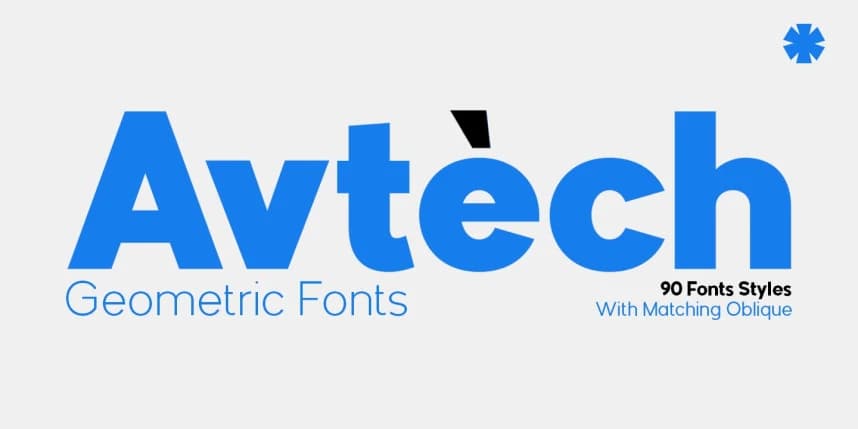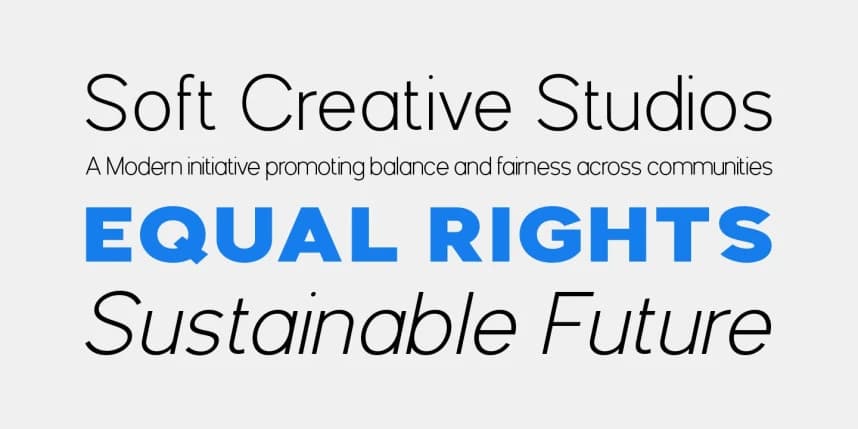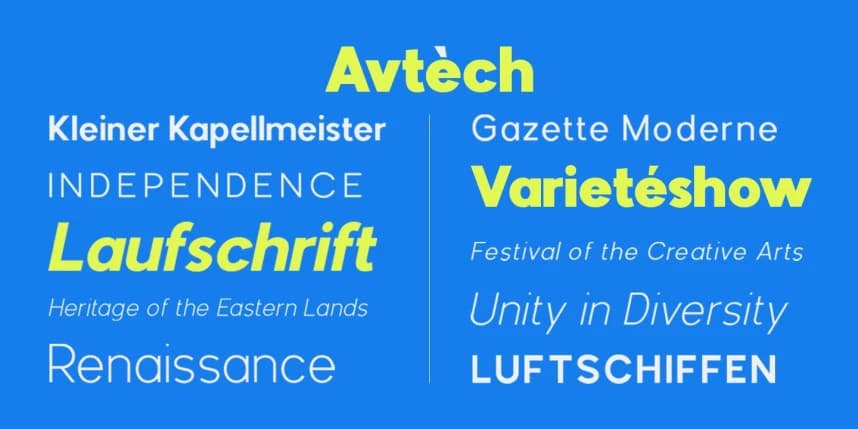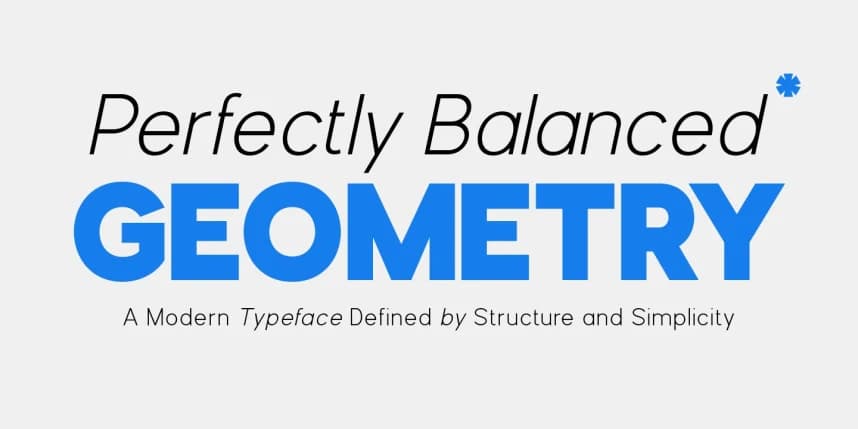
Avtech Font
Avtèch Font – The Future of Geometric Typography Step into the future of design with Avtèch — a powerful geometric typeface crafted to make bold statements and leave lasting impressions. Built with precision and modern aesthetics